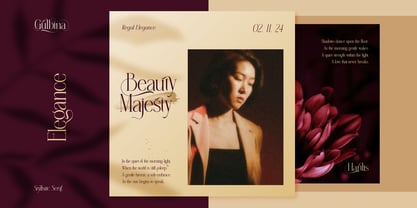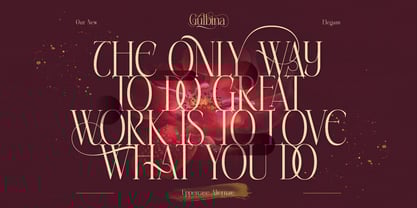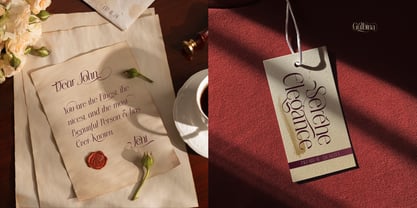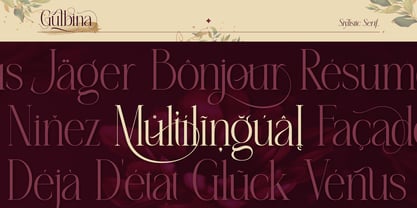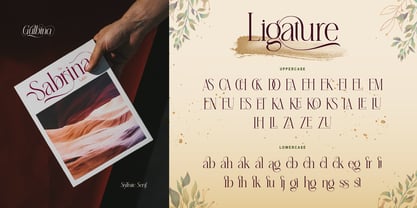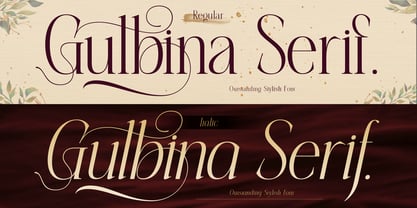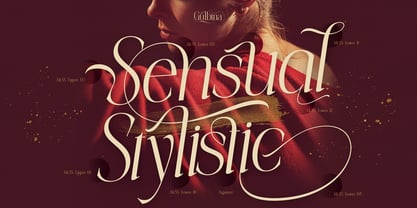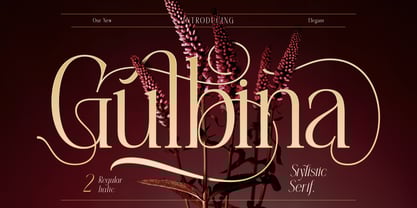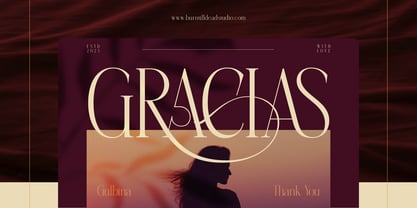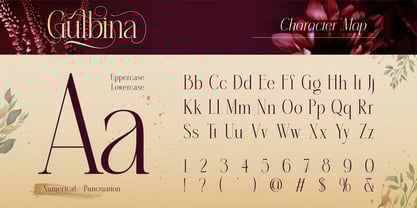
Gulbina
A família de fontes Gulbina foi desenhada por Eric Kurniawan e publicada pela Burntilldead. Gulbina contém 2 estilos e opções de pacote familiar.
Discover the elegance of Gulbina, a serif font with stunning visual appeal and artistic details in every letter. Gulbina comes in two styles: Regular and Italic, featuring alternates that add a touch of elegance, professionalism, and sophistication.
This font is the perfect choice for design projects that require a modern classic feel, whether for logos, product packaging, magazines, luxury branding, social media, wedding invitation and more. With its timeless character, Gulbina helps create a strong visual identity and leaves a lasting impression.
Features:
• A - Z set (Uppercase & Lowercase)
• Number
• Punctuation
• Alternates
• Ligatures
• Multilingual